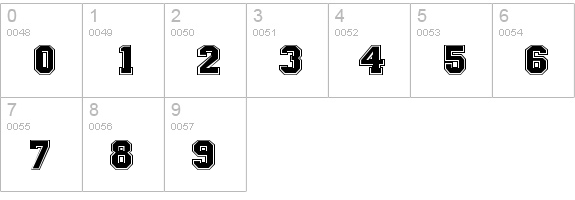
Racing Font Details
The Racing font is an exhilarating and dynamic typeface that captures the essence of speed and adrenaline. Its sleek and angular letterforms are reminiscent of the sleek lines and curves found on race cars, making it the perfect choice for any racing-themed design project. This font is not only visually stunning, but it also conveys a sense of energy and movement. Each character is meticulously crafted to create a sense of forward motion, as if the letters themselves are speeding across the page. The Racing font is sure to make a bold statement and leave a lasting impression on any viewer. What makes this font even more appealing is that it is free to download at FontsMarket.com. This means that you can add a touch of speed and excitement to your designs without having to spend a dime. Whether you're creating a poster for a racing event, designing a logo for a motorsports team, or simply adding a touch of speed to your personal projects, the Racing font is the perfect choice. So why wait? Download the Racing font today and start adding a burst of energy to your designs. With its sleek and dynamic letterforms and its availability for free at FontsMarket.com, there's no reason not to give it a try. Let the Racing font take your designs to the next level and leave your audience in awe.